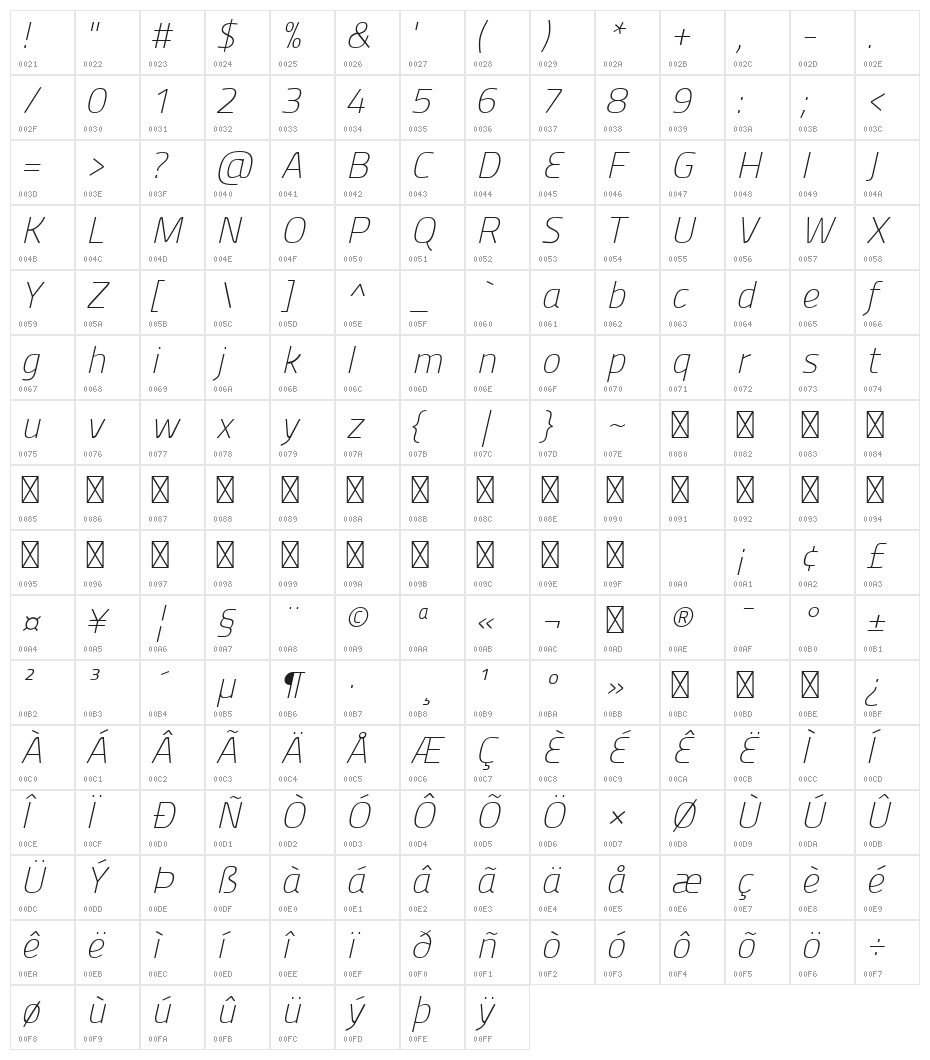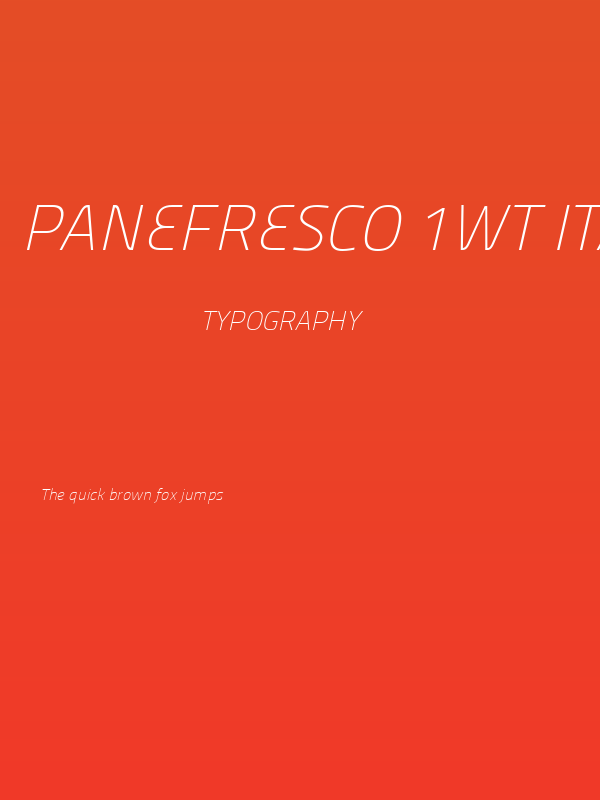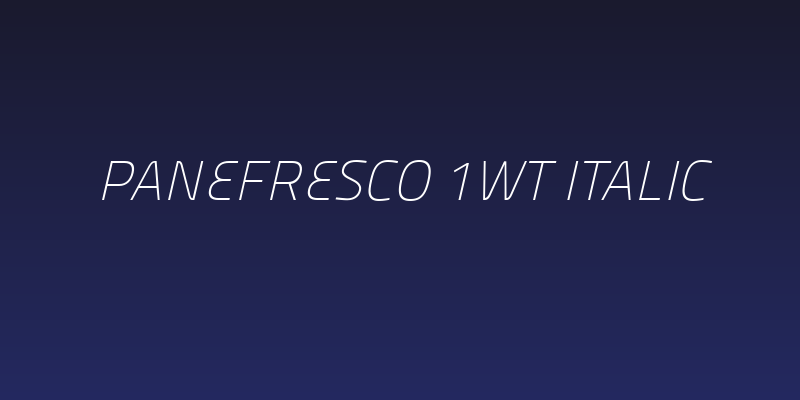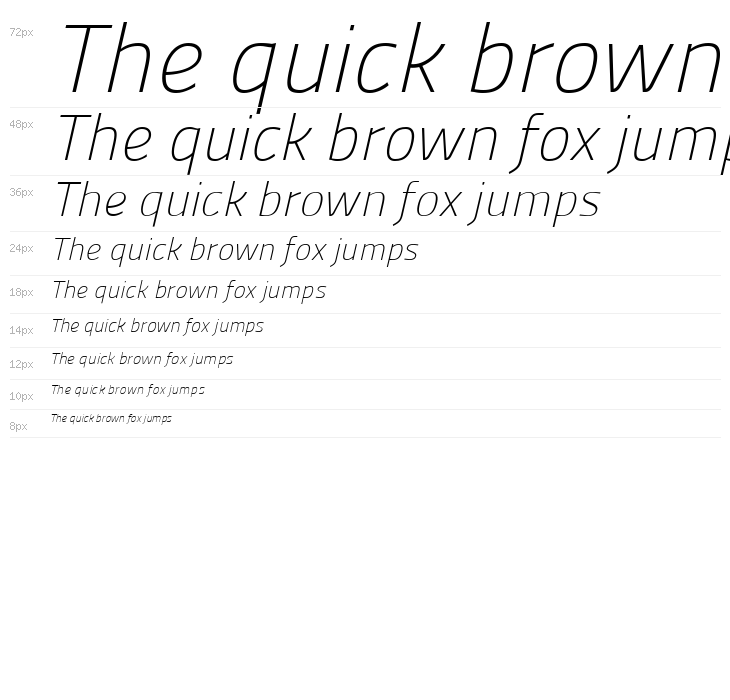
Panefresco 1wt Italic Font
Panefresco 1wt Italic Description
This font exhibits a sleek and modern design with a subtle italic slant, giving it a dynamic and forward-moving appearance. The characters are elegantly elongated with smooth curves and clean lines, creating a sense of fluidity and sophistication. The uppercase letters maintain a consistent height, while the lowercase letters are slightly more rounded, providing a harmonious balance. The numerals are clear and legible, matching the overall style of the alphabet. Special characters are well-integrated, maintaining the font's cohesive look. The overall impression is one of elegance and modernity, suitable for a variety of design applications.